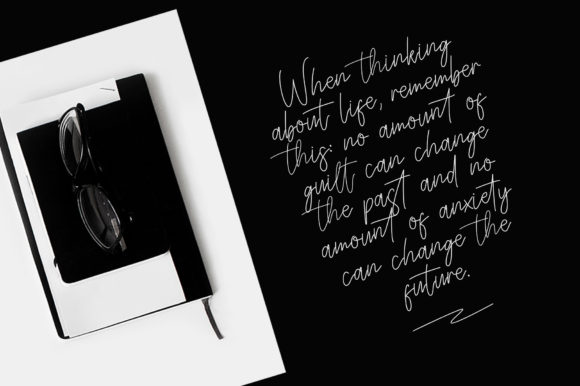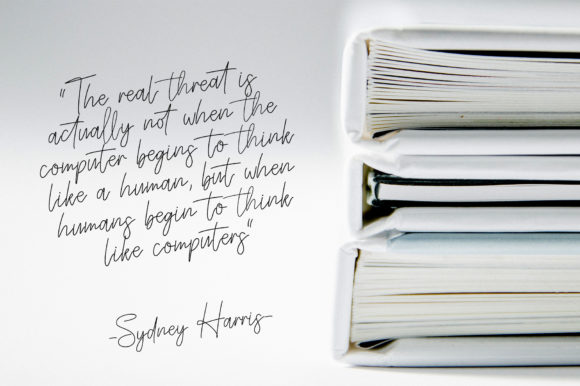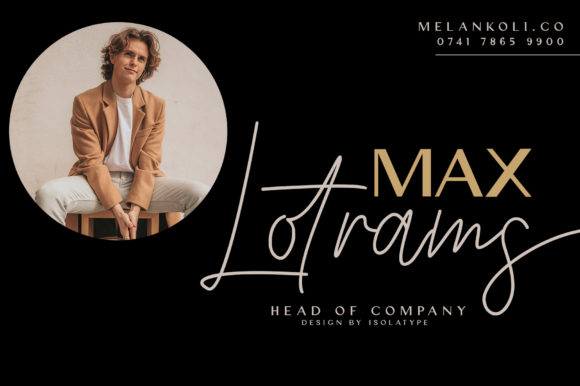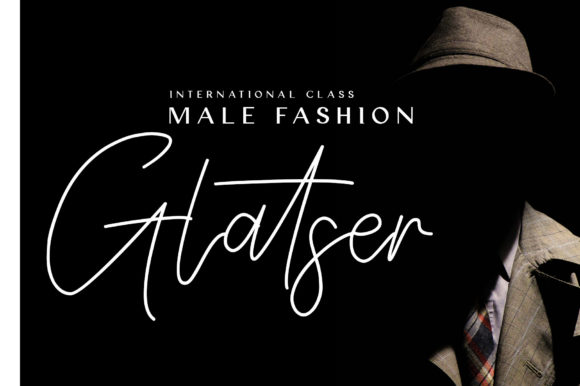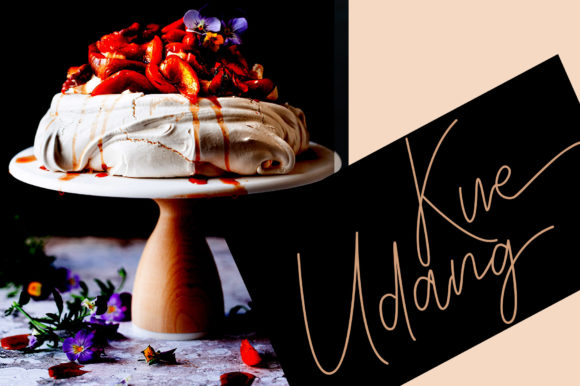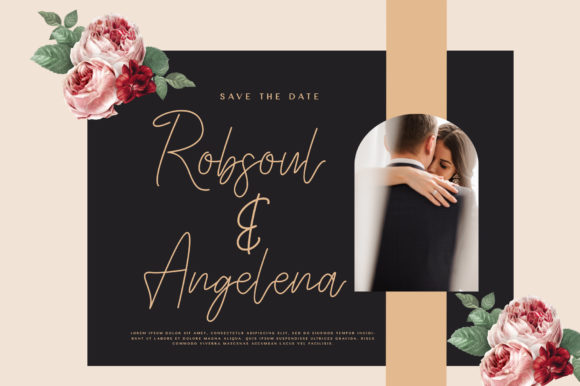
Introduction to Justifiers Souliter Font
Have you ever found yourself staring at a blank canvas, desperately searching for the perfect font to bring your creative project to life? The struggle is real, especially when you’re working on a high-quality design that requires a touch of elegance and sophistication. As a designer, you know that the right font can make all the difference in capturing the essence of your vision.
That’s where Justifiers Souliter Font comes in – a beautiful and delicate script font that exudes class and refinement. This lovely font is a game-changer for designers who crave a fresh and unique look for their designs. Whether you’re working on a branding project, a wedding invitation, or a creative blog post, Justifiers Souliter Font is sure to impress with its high-quality design and versatility.
What’s more, this fantastic font is PUA encoded, making it easy to access all its glyphs and swashes, and it’s available for free download – a valuable resource for any designer. So why settle for a generic font when you can elevate your design with the sophistication and charm of Justifiers Souliter Font?
Key Features of Justifiers Souliter Font
- Unique and elegant design style, perfect for creative projects and design resources.
- High-quality font with transparent background, ideal for overlaying on images or videos.
- Designed to be versatile and easy to use, making it a great addition to any design resource library.
- Perfect for use in digital and print projects, including logos, graphics, and typography-based designs.
Honest Review: Justifiers Souliter Font
As a designer, I’m always on the lookout for high-quality design resources that can elevate my creative projects. Recently, I stumbled upon the Justifiers Souliter Font, and I’m excited to share my honest review with you.
- ✨ Beautiful, modern aesthetic that’s perfect for contemporary design projects
- ✨ Highly legible and clear, making it ideal for body text and titles
- ⚠️ Limited character set, which may not be suitable for complex projects
- ⚠️ Not ideal for small text sizes, as it can become difficult to read
Overall, I’m impressed with the Justifiers Souliter Font. Its modern design and clear typography make it a great addition to any design resource collection. While it may have some limitations, I believe it’s a valuable asset for designers working on creative projects. If you’re looking for a high-quality font to elevate your designs, I’d definitely recommend giving it a try.
The Justifiers Souliter Font is perfect for a variety of creative projects, including logos, branding materials, and marketing materials. Its high-quality design resource and creative project-friendly design make it an ideal choice for designers and non-designers alike.